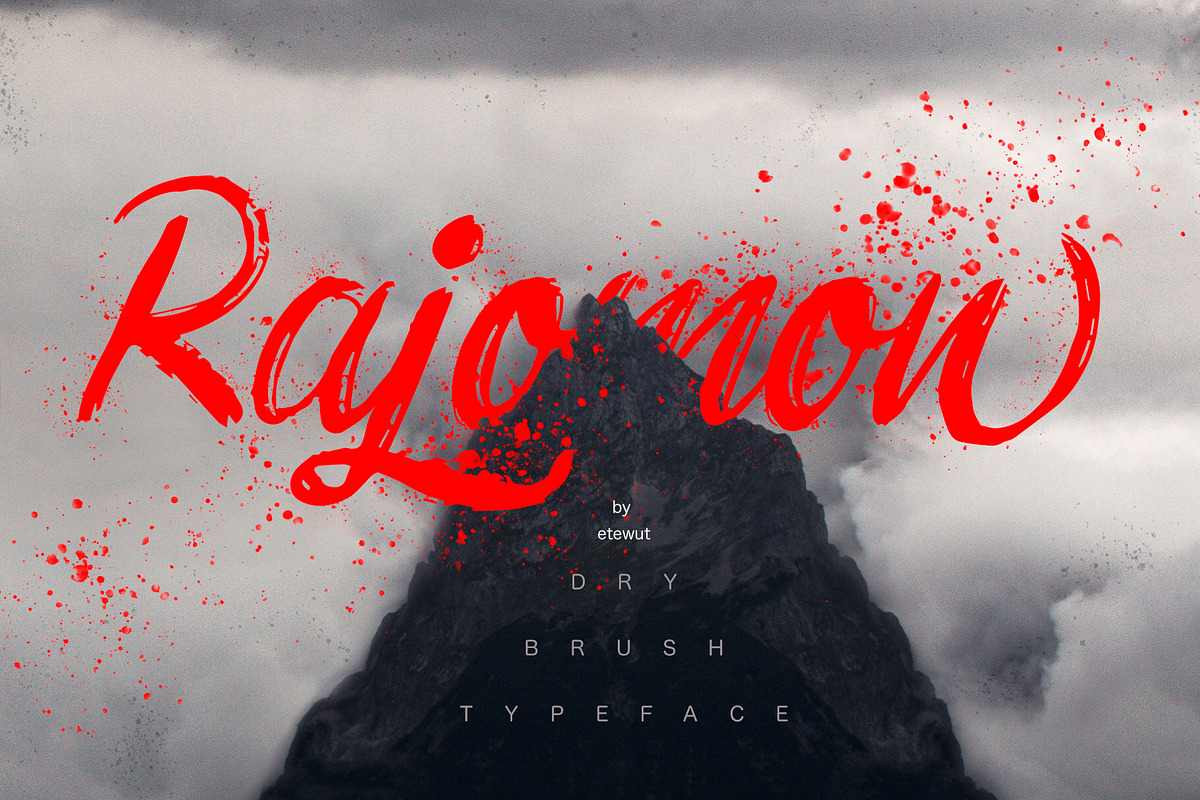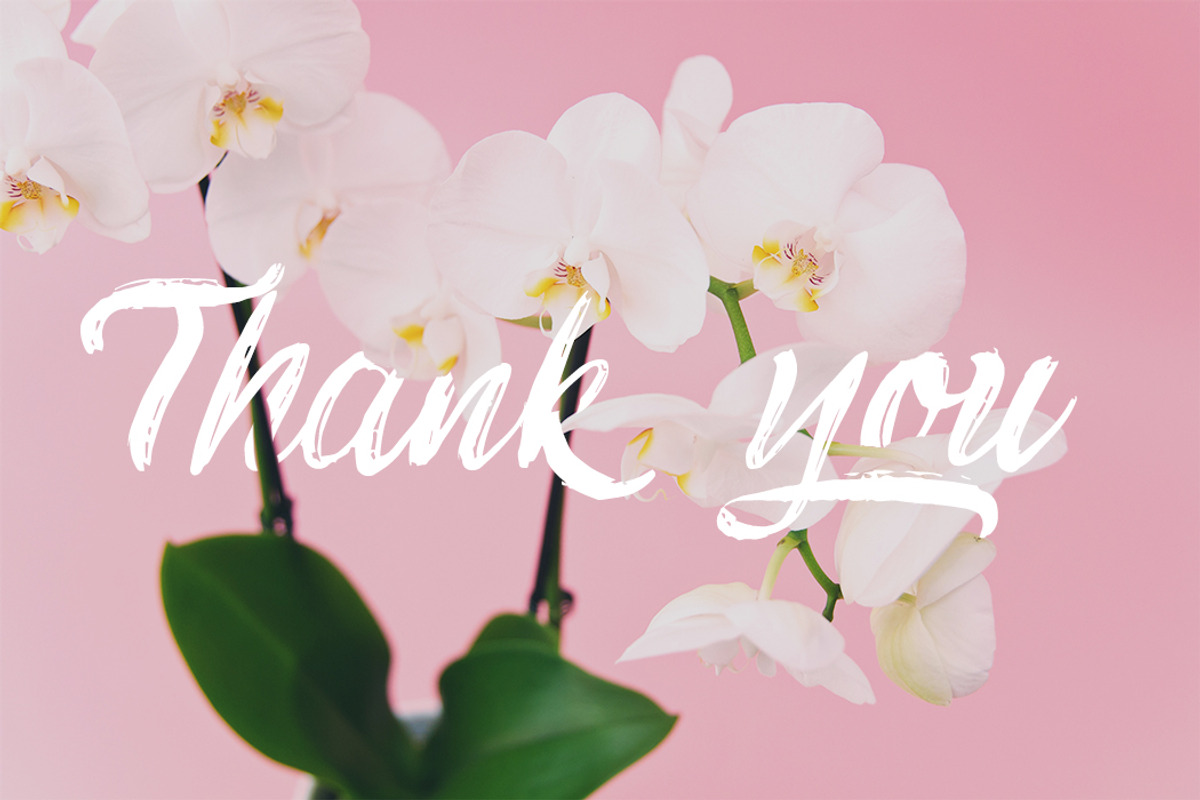
Rajomon
Introducing Rajomon the hand drawn script made with dry brush. All European languages are in. More of all there are initial, final and alternative letters for making your lettering on a high level as a peak of the rock!